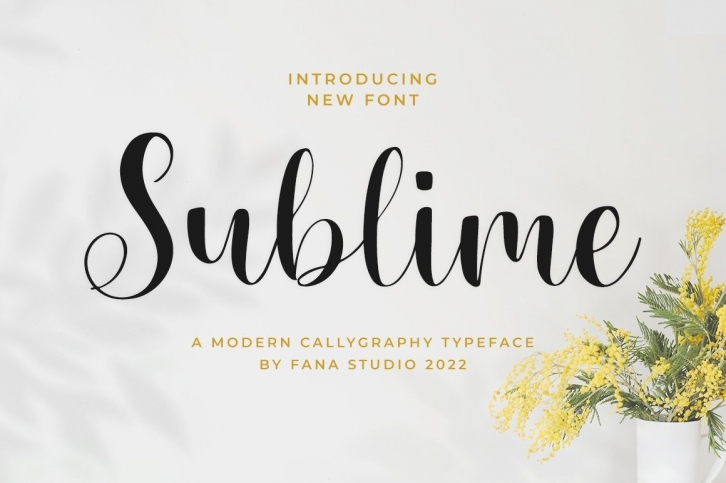
Introducing Sublime Script, a stylish Font Style. This beautiful script font offers your personal touch to your latest art project with elegant, classy and modern look.
Numeral and punctuation
International Language